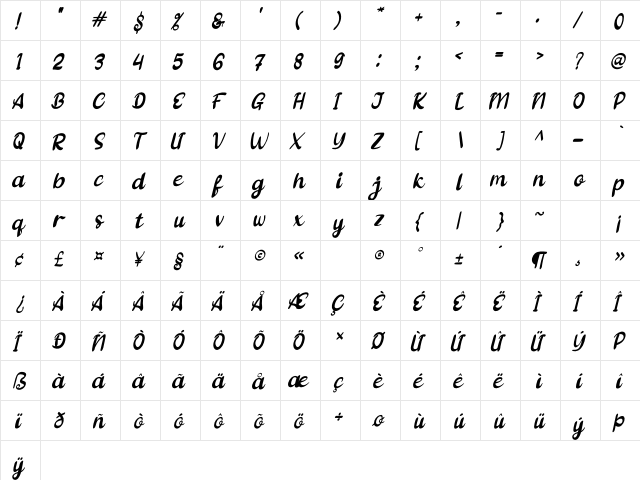
Angles Regular
Design Context for Angles Typeface
Angles is a composed and adaptable typeface that performs quietly and consistently across a wide range of design contexts.
Pro Tip: Pair Angles with a font of contrasting weight or personality to build a more expressive typographic hierarchy.